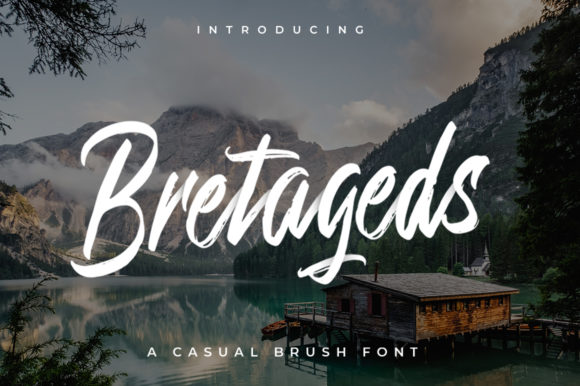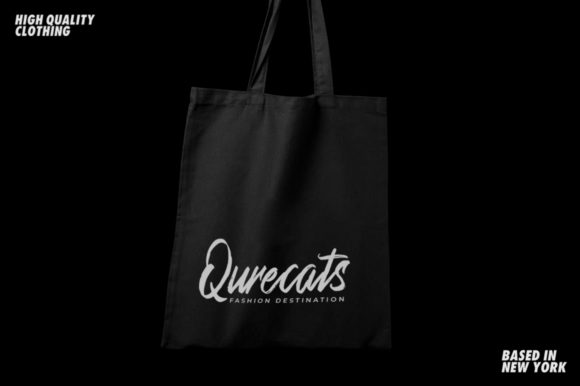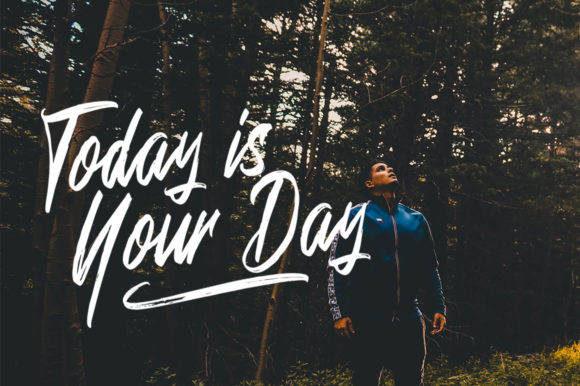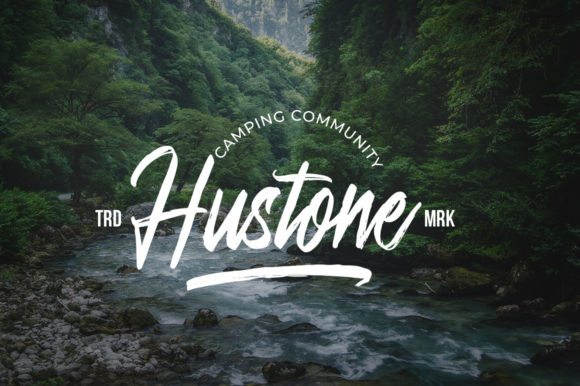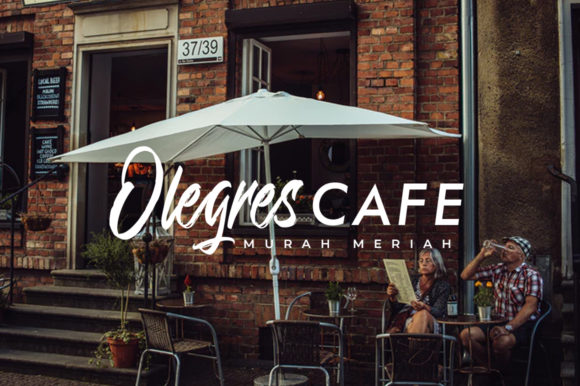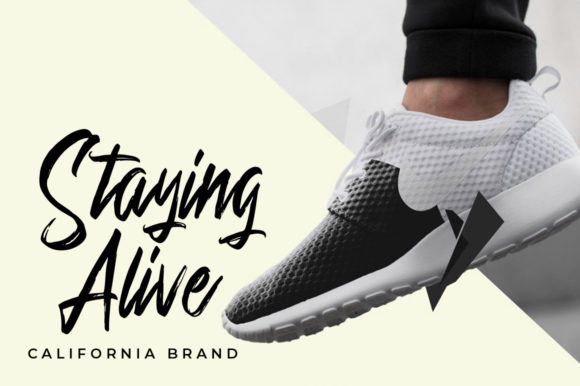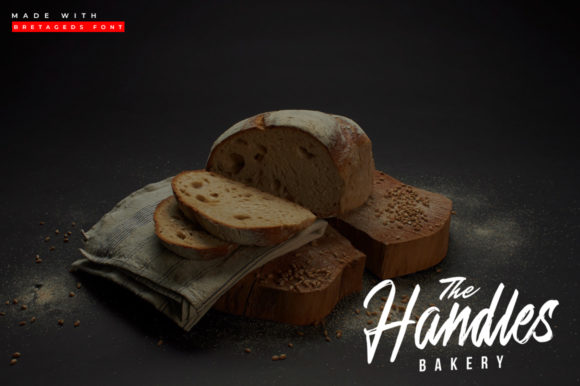
Bretageds Font
About Bretageds Font
The Bretageds is a rough brush script with a clear style and good flow It’s great for your next creative project such as logotypes, printed quotes, invitations, cards, product packaging, headers, letterheads, posters, apparel designs, labels, and much more!